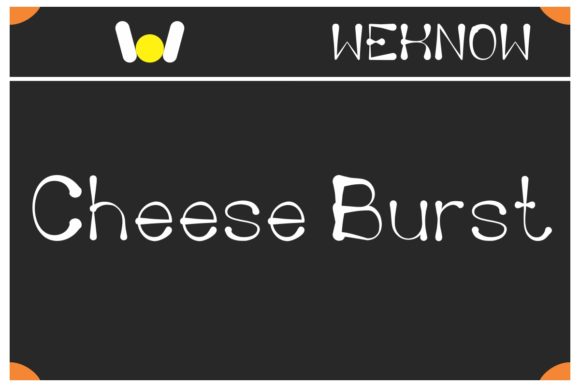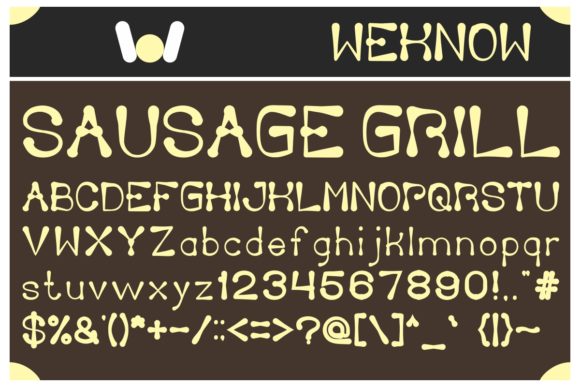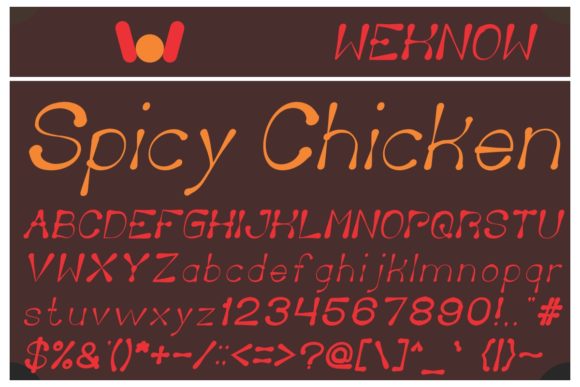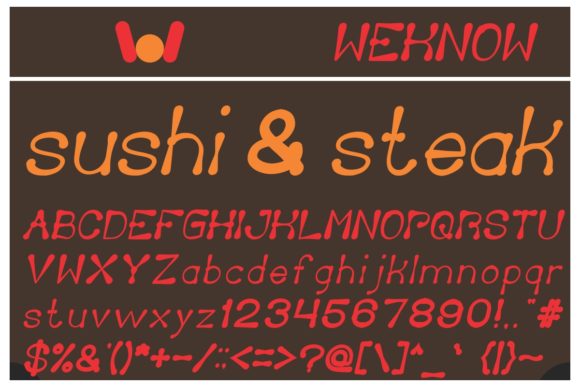
Introduction to Delicious Ketchup Font
Have you ever been brainstorming a creative project, only to be stumped by the perfect font to bring your vision to life? It’s a problem many designers face, but what if you stumbled upon a font that’s as charming as a warm summer day? That’s exactly what happens when you discover the Delicious Ketchup Font.
This delightful display font is the perfect addition to any design resource, offering a friendly feel that’s sure to elevate your next creative project. Whether you’re working on a DIY project, crafting social media graphics, or simply need a high-quality font for your design needs, Delicious Ketchup Font is the perfect choice.
Key Features of Delicious Ketchup Font
- High-quality, unique font design perfect for creative projects and design resources.
- Unique characteristics: Hand-drawn design elements and bold typography make Delicious Ketchup Font stand out in creative projects.
Honest Review: Delicious Ketchup Font
I recently stumbled upon the Delicious Ketchup Font while searching for the perfect design resource for my creative project. As a designer, I was excited to explore this font and see if it could meet my expectations.
- The Delicious Ketchup Font offers a unique and playful aesthetic that can add a fun twist to any design project.
- The high quality of the font makes it suitable for a variety of creative projects, from logos to graphics and more.
- The font may not be suitable for formal or professional projects due to its playful nature.
- The font’s unique aesthetic may not appeal to all designers or clients.
Overall, I was pleasantly surprised by the Delicious Ketchup Font. While it may have some limitations, its unique aesthetic and high quality make it a great addition to any design resource library. I would definitely recommend it for designers looking for a fun and playful font for their creative projects.
Delicious Ketchup Font
For getting the most out of the Delicious Ketchup Font, use it sparingly to add emphasis and visual interest to your design. Common use cases include creating eye-catching social media graphics, designing a playful logo, or adding a fun touch to a children’s book.